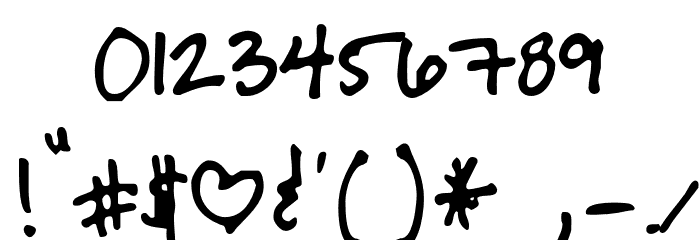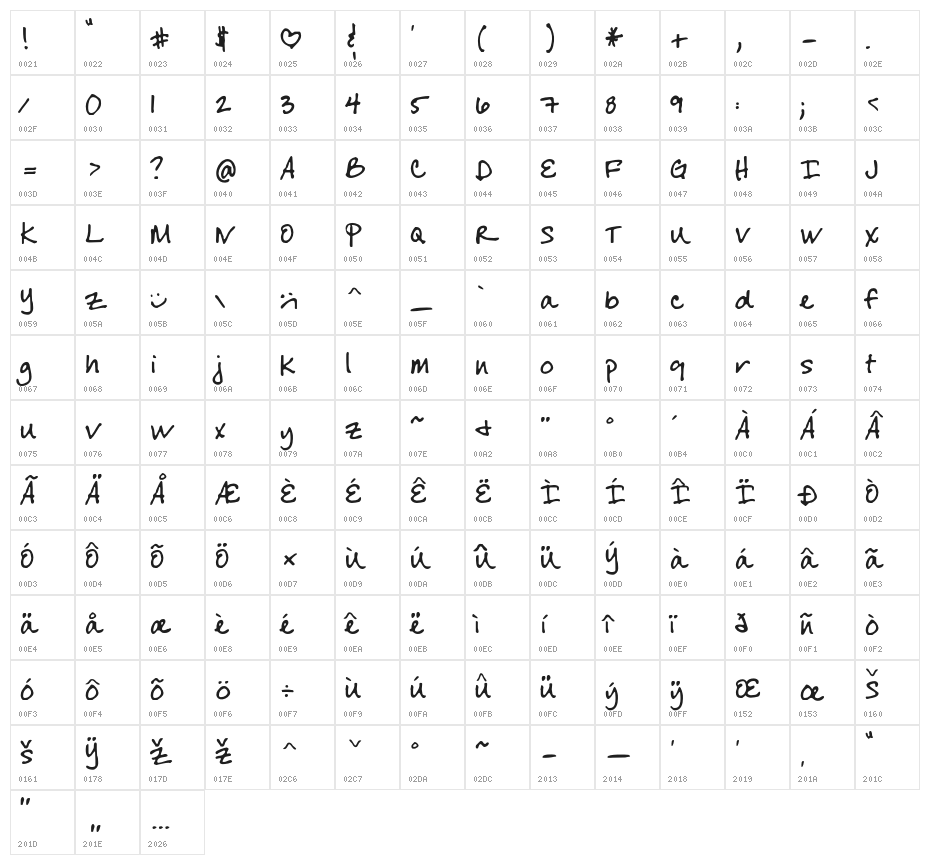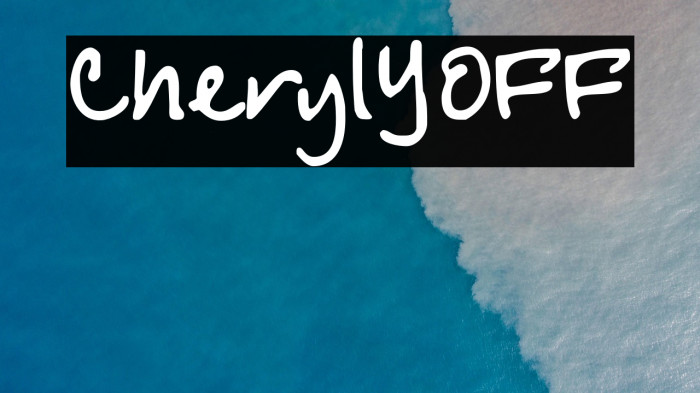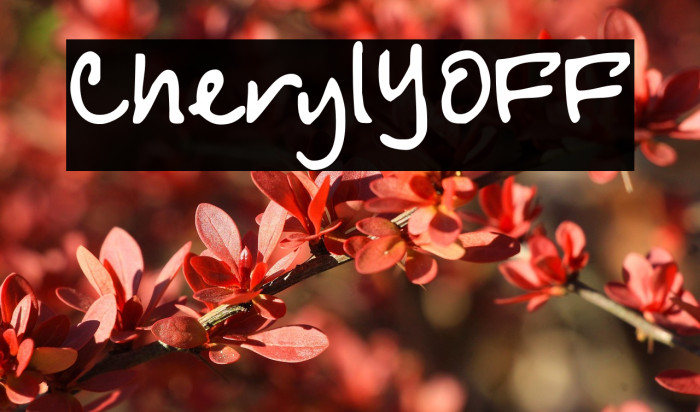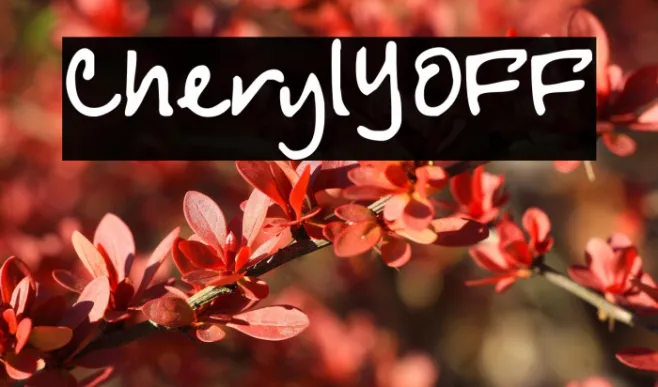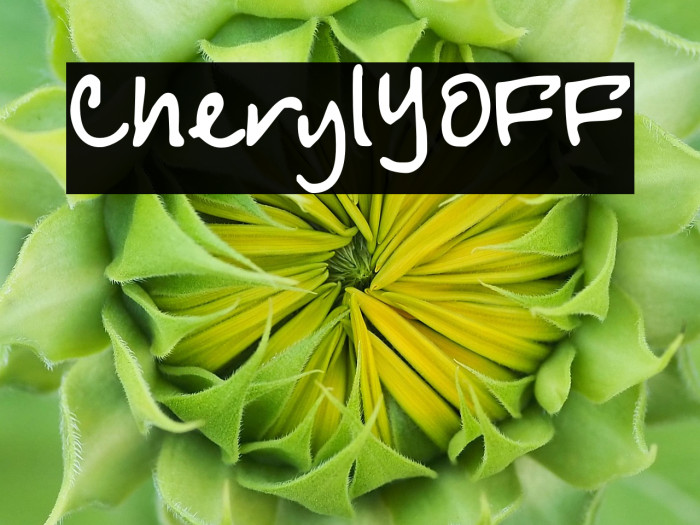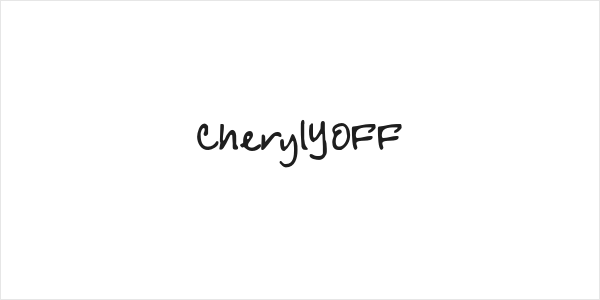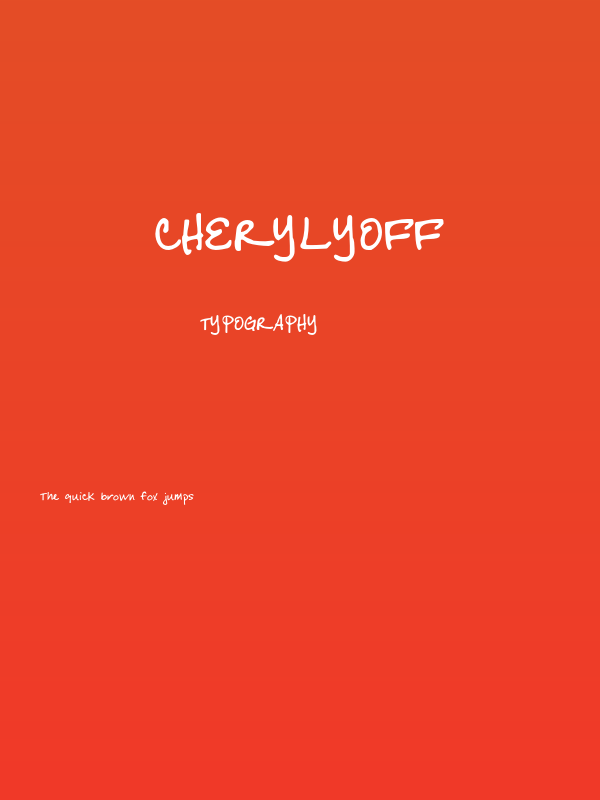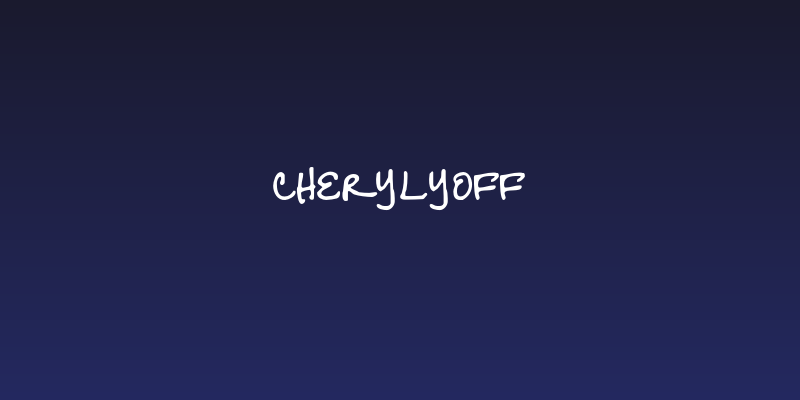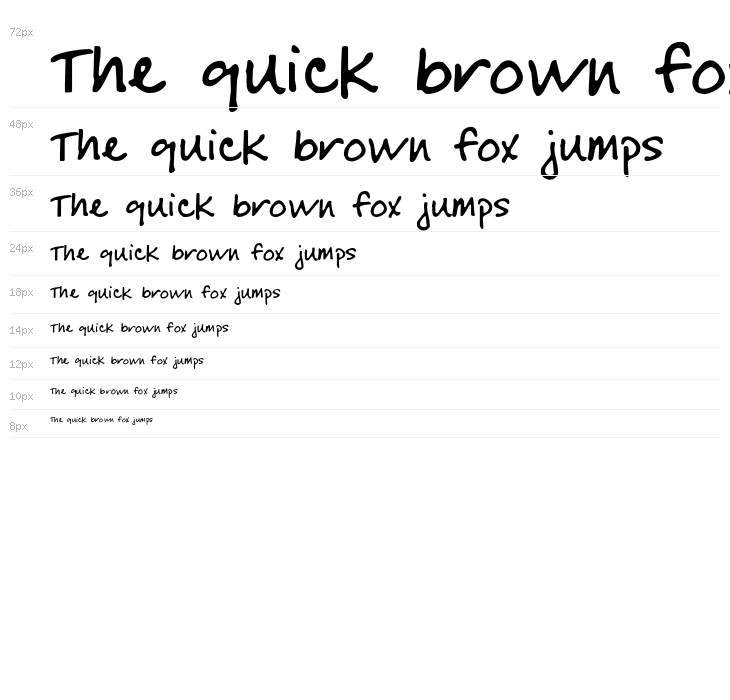
CherylYOFF Font
CherylYOFF Description
This font features a playful and casual handwritten style, characterized by its uneven strokes and organic flow. The letters are slightly slanted, giving it a dynamic and informal appearance. The uppercase and lowercase letters maintain a consistent style, with rounded edges and varying stroke widths that add to its charm. The numerals and special characters follow the same playful aesthetic, making it suitable for creative and informal designs. Its overall look is approachable and friendly, ideal for projects that require a personal touch.
| Proposed Projects | Ideal for greeting cards, children's books, personal blogs, and informal branding. |